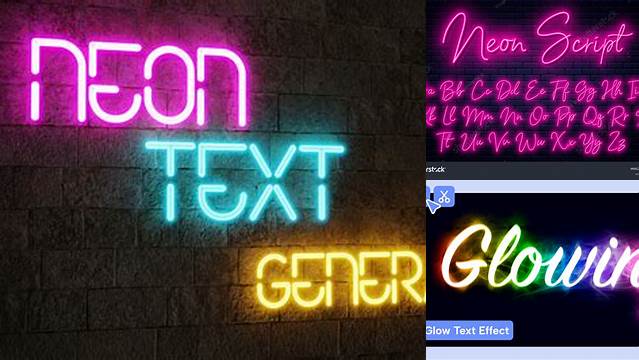
Free Neon Sign Font Generator: Glowing Text Effects
Hey guys! Ever wanted to create that cool, retro vibe of a neon sign? Well, you're in the right place! In this article, we're diving deep into the world of neon sign font generators, exploring how you can use them to create stunning visuals for free. Whether you're designing a logo, crafting social media graphics, or just want to play around with some glowing text, we've got you covered. So, let's get started and turn your text into electrifying art!
What is a Neon Sign Font Generator?
First off, let's break down what a neon sign font generator actually is. Simply put, it's a tool that allows you to convert regular text into a style that mimics the appearance of a neon sign. Think of those classic, brightly lit signs you see in bars, diners, and old movies – that's the aesthetic we're going for. These generators typically offer a range of customizable options, such as font styles, colors, and glow effects, giving you a ton of creative control.
Why use a neon sign font generator, you ask? Well, for starters, they're super fun to play with! But beyond that, they're incredibly useful for creating eye-catching designs. Neon fonts are perfect for adding a retro or vintage touch to your projects. They can make your text pop, draw attention, and convey a sense of energy and excitement. Whether you're designing a website header, a poster for an event, or a social media post, a neon font can really make your message stand out. The appeal of neon sign font generators lies in their ability to instantly transform ordinary text into something visually striking and memorable. They evoke a sense of nostalgia, bringing back the iconic imagery of classic neon signs, while also offering a modern and dynamic aesthetic. This combination of retro charm and contemporary appeal makes them a popular choice for various design projects.
Moreover, using a neon sign font generator is incredibly efficient. Instead of manually creating neon effects in complex design software, these generators provide a quick and easy solution. You can experiment with different styles and settings in real-time, seeing the results instantly. This allows for rapid iteration and refinement of your design, saving you valuable time and effort. The convenience and speed of these tools make them ideal for both professional designers and hobbyists alike. They bridge the gap between complex design software and user-friendly interfaces, making neon-style typography accessible to everyone. By simply inputting text and adjusting a few settings, you can achieve a professional-looking neon effect in minutes.
Another significant advantage of neon sign font generators is their versatility. They are not limited to just one type of project or application. Whether you're designing digital graphics for online use or creating visuals for print, neon fonts can adapt to a wide range of mediums. This flexibility makes them a valuable asset in any designer's toolkit. You can use them for logos, banners, posters, flyers, social media content, and much more. The ability to scale and adapt the font to different sizes and formats ensures that your message remains impactful and legible, regardless of the context. Furthermore, many generators offer export options that are compatible with various design software and platforms, streamlining your workflow and ensuring seamless integration into your existing projects.
Key Features to Look for in a Neon Sign Font Generator
Okay, so you're sold on the idea of using a neon sign font generator. Awesome! But with so many options out there, how do you choose the right one? Here are some key features to keep an eye out for:
Font Variety: A good generator should offer a wide selection of fonts that mimic the look of neon tubes. Think classic script fonts, bold sans-serifs, and even some quirky, retro styles. The more variety, the more creative you can get! The availability of diverse font options is crucial because it allows you to match the text style with the overall tone and theme of your design. For example, a sleek and modern font might be perfect for a technology-related project, while a vintage script font could be ideal for a retro-themed poster. The ability to experiment with different fonts helps you fine-tune your message and create a visual impact that resonates with your target audience.
Color Customization: Neon signs are all about vibrant colors, right? So, make sure the generator allows you to choose from a wide spectrum of colors. Bonus points if you can create custom color gradients for an extra-realistic effect. Color customization is not just about aesthetics; it also plays a significant role in conveying emotions and setting the mood of your design. Bright, saturated colors can evoke excitement and energy, while softer, pastel hues can create a more relaxed and nostalgic feel. The ability to adjust the intensity and hue of the neon glow allows you to precisely tailor the visual impact of your text. Moreover, custom color gradients can add depth and dimension to the neon effect, making it appear more realistic and visually appealing.
Glow Effects: The glow is what really makes a neon sign pop. Look for generators that offer adjustable glow intensity, spread, and even flicker effects. This will help you create that authentic neon look. The glow effect is arguably the most defining characteristic of a neon sign, and the quality of this effect can make or break the final result. Adjustable glow intensity allows you to control how much the light emanates from the text, creating subtle or dramatic effects as needed. Glow spread determines the extent to which the light diffuses outwards, influencing the overall vibrancy and readability of the text. Flicker effects, although less commonly used, can add a touch of realism and authenticity, mimicking the natural fluctuations of a real neon tube.
Background Options: Some generators allow you to add a background to your text, which can be super helpful for creating finished graphics. Look for options to upload your own images or choose from a library of backgrounds. Background options are essential for integrating your neon text seamlessly into your design. The background can serve as a canvas that complements the neon effect, enhancing its visual impact and ensuring that the text stands out. The ability to upload custom images allows you to create designs that are highly personalized and tailored to your specific needs. Alternatively, a library of pre-designed backgrounds can provide a quick and convenient way to add context and visual interest to your text. The choice of background can significantly influence the overall message and aesthetic of your design, making it a crucial consideration when selecting a neon sign font generator.
Ease of Use: Let's be real, no one wants to spend hours figuring out how to use a tool. The best neon sign font generators are intuitive and user-friendly, with clear instructions and a simple interface. A user-friendly interface is paramount for ensuring that the tool is accessible to a wide range of users, regardless of their technical expertise. Intuitive controls and clear instructions make it easy to experiment with different settings and achieve the desired results quickly. A simple interface also reduces the learning curve, allowing you to focus on the creative aspects of your design rather than getting bogged down in complex menus and options. The ability to preview changes in real-time is another crucial aspect of a user-friendly generator, as it allows you to see the impact of your adjustments immediately.
Let Your Creativity Glow!
So there you have it, guys! Everything you need to know about using a neon sign font generator to create awesome text effects. Whether you're a seasoned designer or just starting out, these tools offer a fun and easy way to add a touch of retro flair to your projects. So go ahead, experiment with different fonts, colors, and glows, and let your creativity shine!